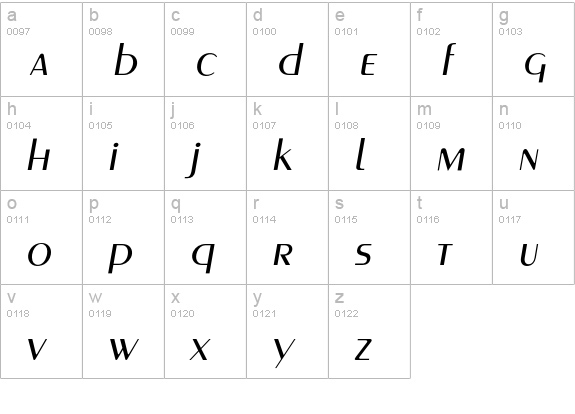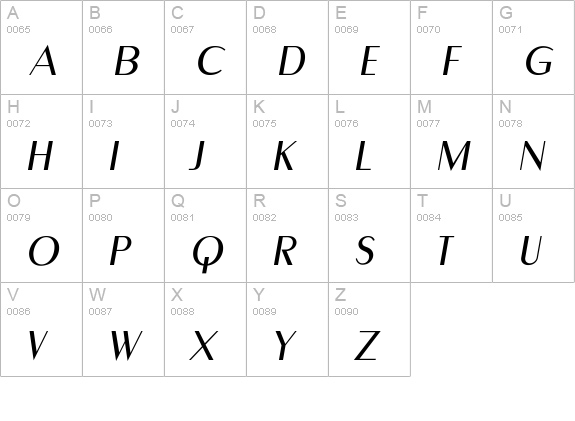
GreyhoundRegularItalic Font Details
Greyhound Regular Italic font is a sleek and modern typeface that exudes elegance and sophistication. Its italicized design adds a touch of flair to any text, making it perfect for various design projects such as branding, advertising, and more. The smooth lines and graceful curves of Greyhound Regular Italic font create a sense of movement and dynamism, making it a versatile choice for both digital and print media. What's even better is that Greyhound Regular Italic font is available for free download at FontsMarket.com. This means you can easily access this stylish font and use it in your projects without any cost. Whether you're a professional designer or a hobbyist looking to elevate your creations, Greyhound Regular Italic font is a fantastic choice that won't break the bank. Download it today and add a touch of sophistication to your designs!